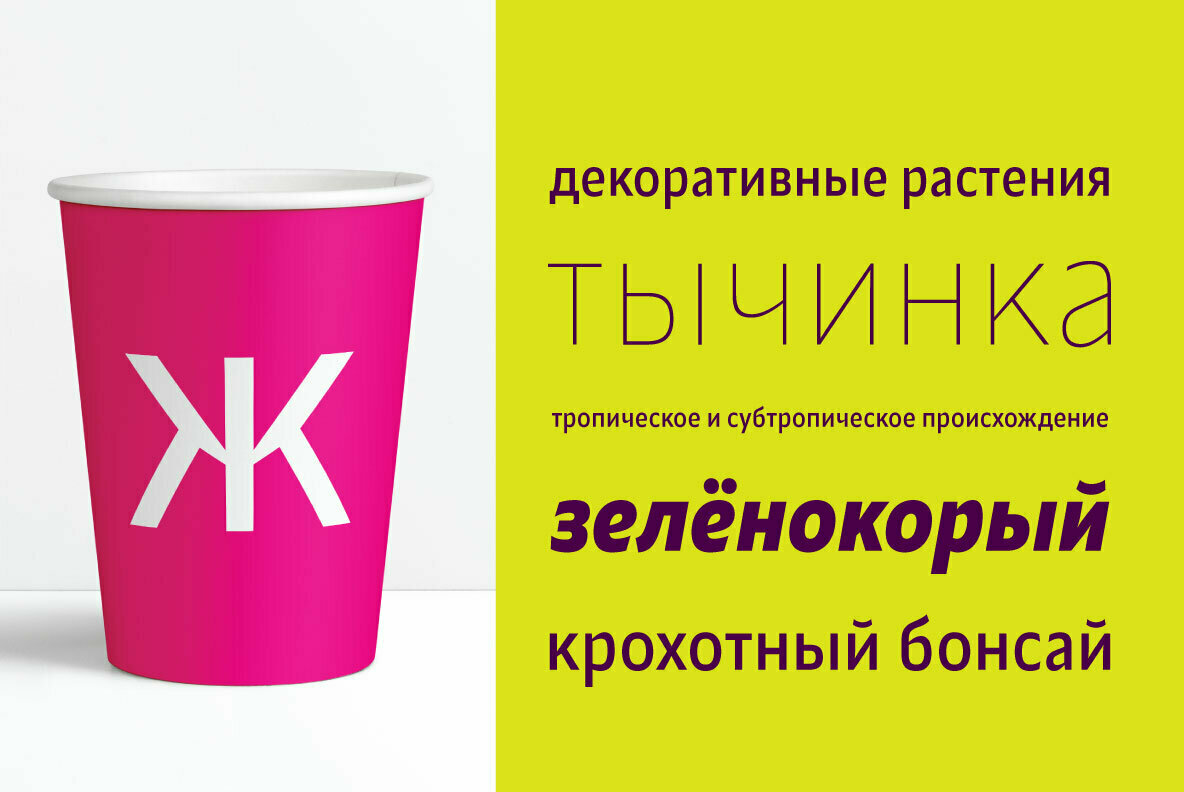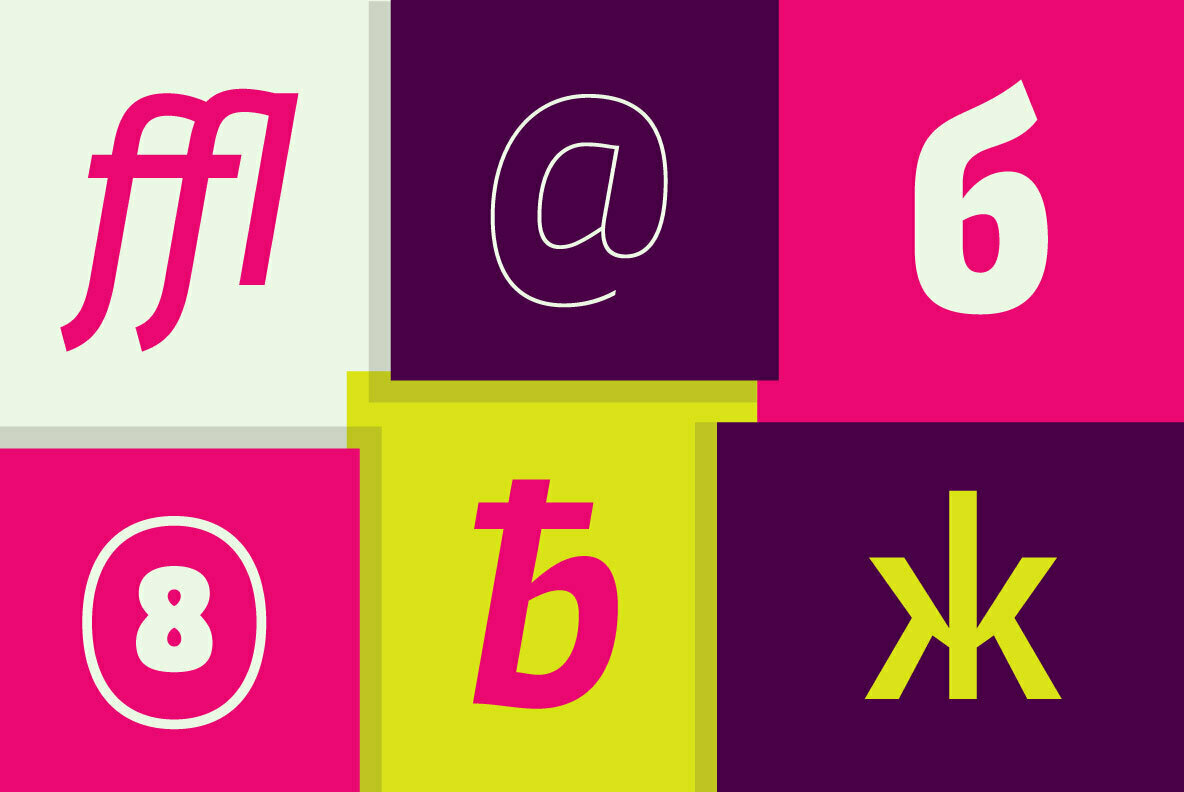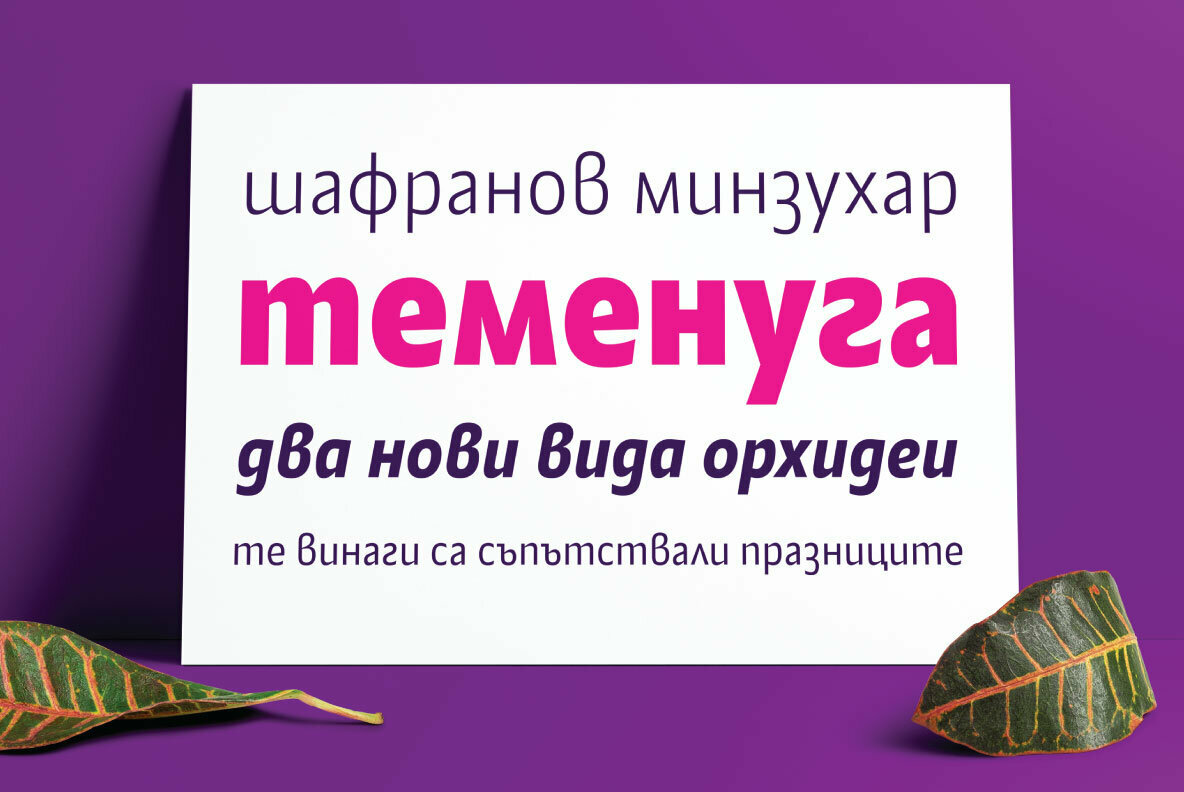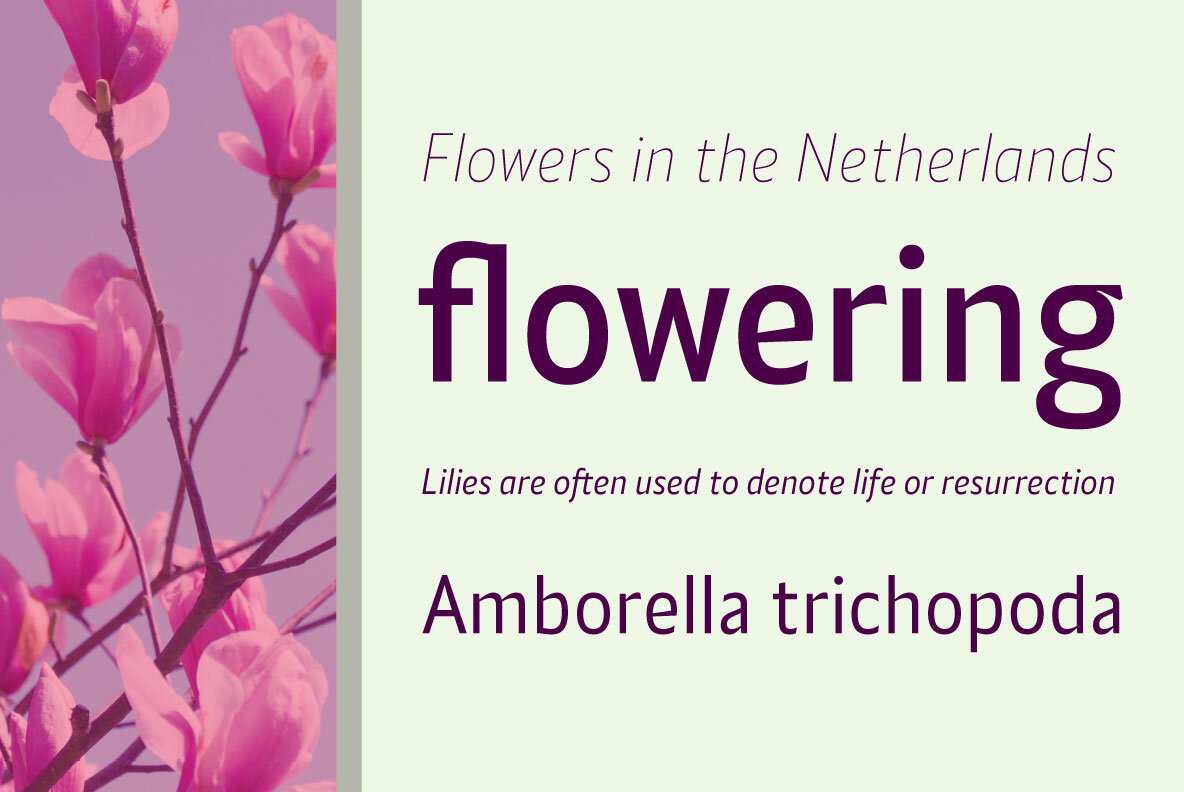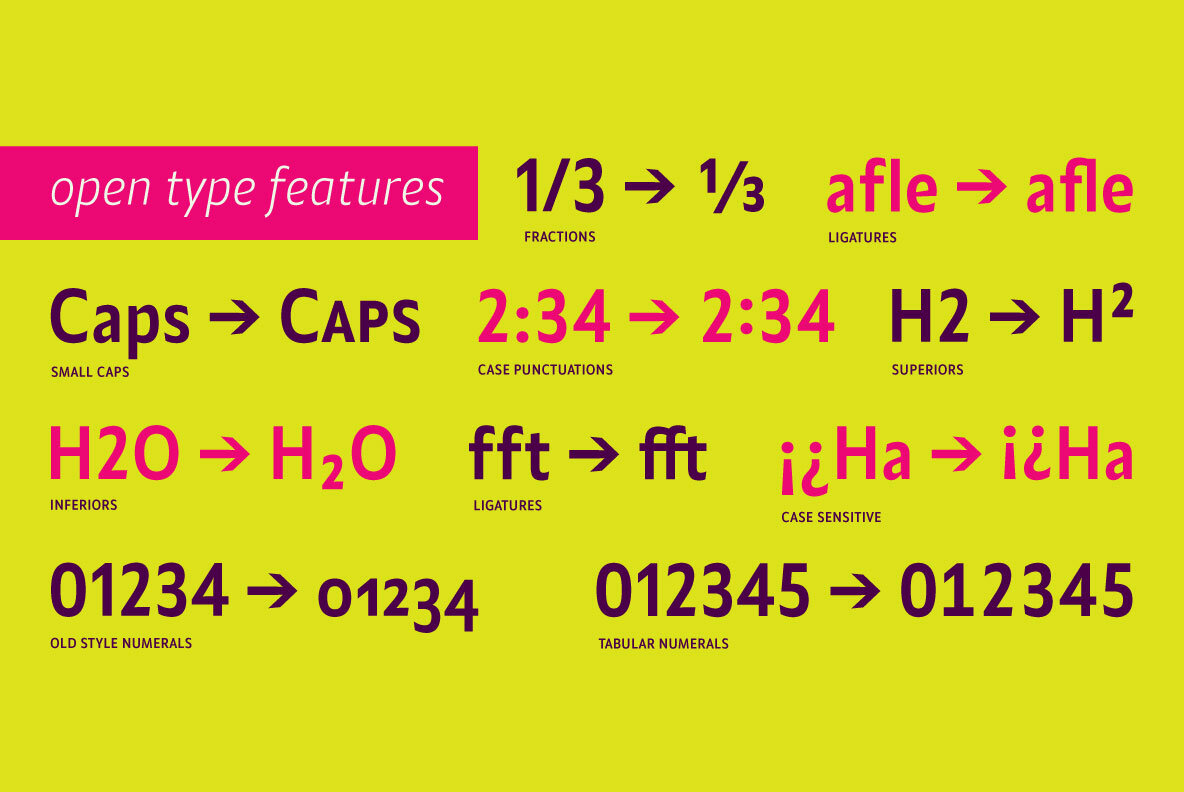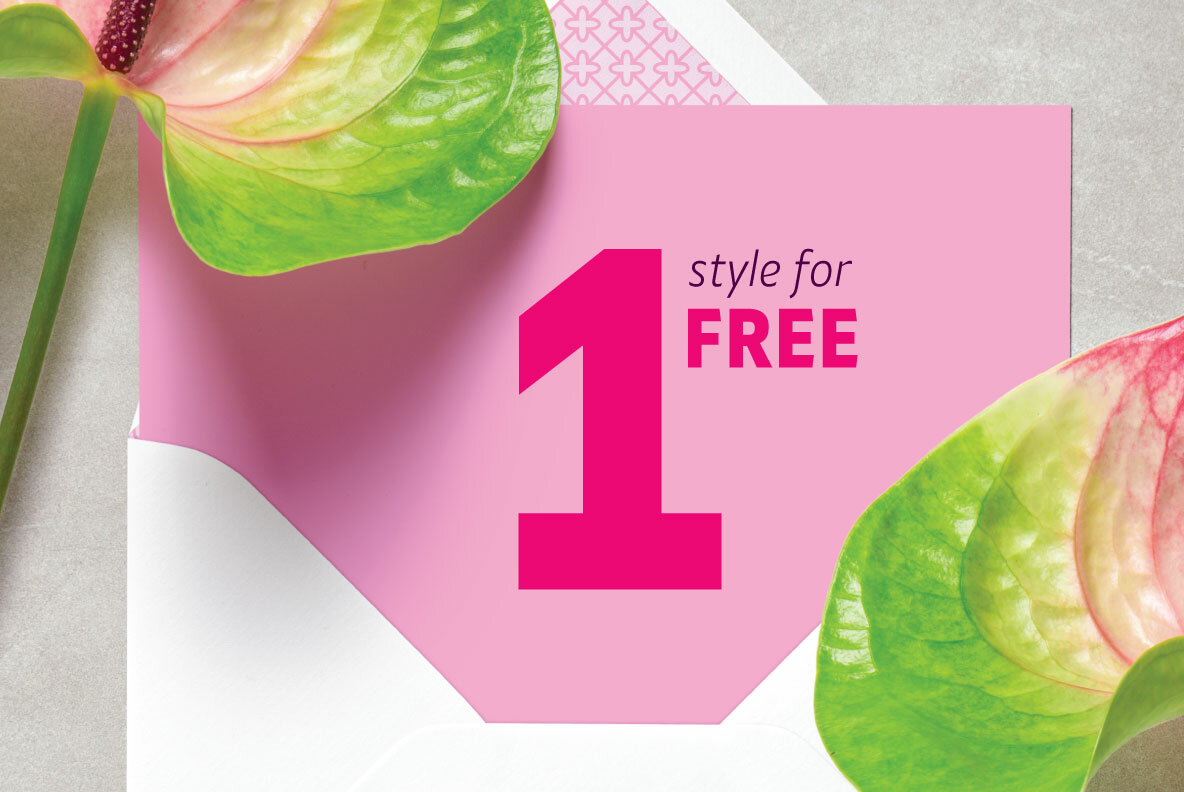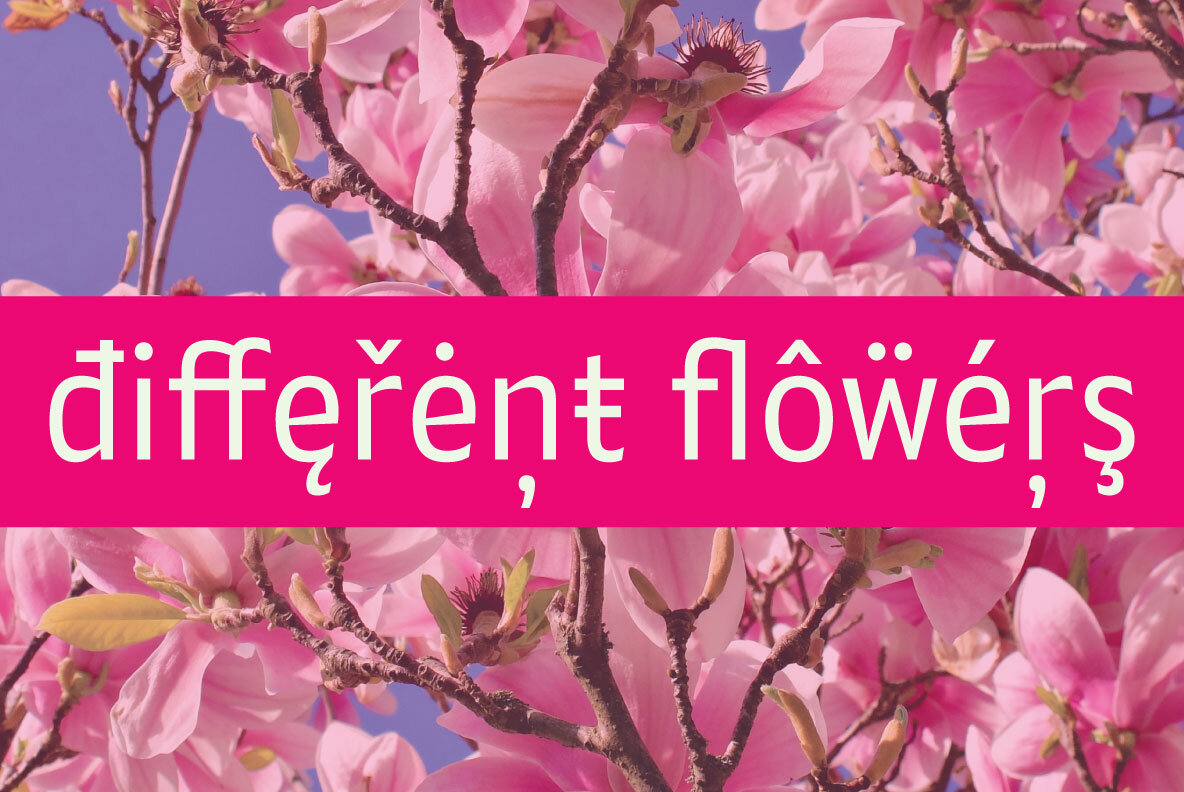
Alamia Font
The Alamia type family is a sans serif in 20 weights, ranging from Hairline to Black with matching italics. Each style contains more than 900 glyphs. Alamia comes with an extended coverage of the Latin and Cyrillic Script.
All weights of this family are equipped for complex, professional typography with Open Type Features including Small Caps, Ligatures, Discretionary Ligatures, Superscript, Subscript, Tabular Figures, Old-Style Figures, Circled Figures, Arrows, Matching currency symbols and fraction. The construction of the characters combines a clean grotesque style with modern, that gives the font an organic, warm, and friendly touch.
The Alamia font family is a perfect choice for body text, branding design, web design, editorial design, and more.